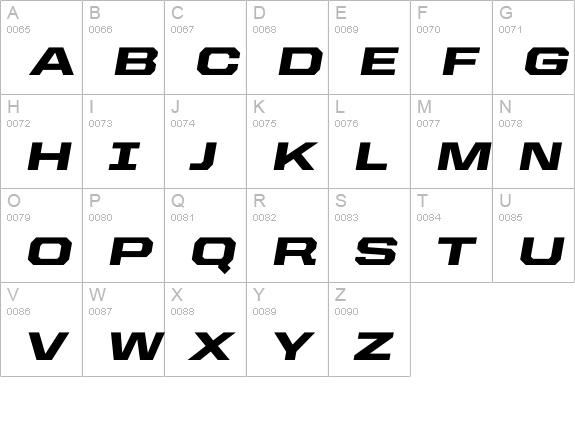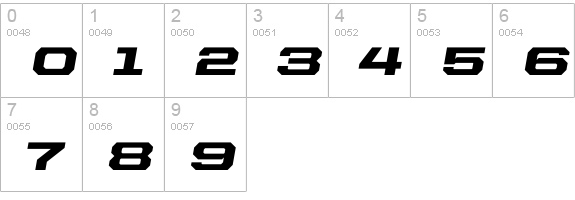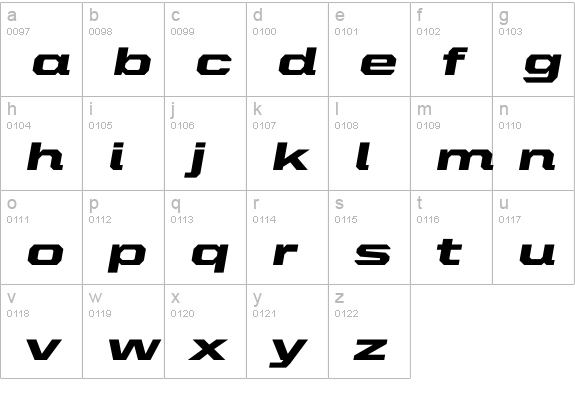
United Italic Ext Black Font Details
United Italic Ext Black is a maximum-weight, dramatic, italic variant in the United typeface family \xE2\x80\x94 well suited to maximum-impact headlines, posters, and packaging.
United Italic Ext Black is a bold and powerful font that demands attention and makes a bold statement. With its sleek and modern design, this font is perfect for creating eye-catching headlines, logos, and branding materials. The thick strokes and sharp edges of United Italic Ext Black give it a strong and authoritative presence, making it perfect for conveying a sense of confidence and professionalism. Its italicized style adds a touch of elegance and sophistication, making it suitable for a wide range of design projects. What sets United Italic Ext Black apart is that it is not only visually stunning, but it is also freely available to download at FontsMarket.com. This means that designers and creators can easily access and utilize this font without any cost. Whether you are a professional designer or a hobbyist, having access to high-quality fonts like United Italic Ext Black can greatly enhance your creative projects. So, if you are looking for a font that combines boldness, elegance, and accessibility, look no further than United Italic Ext Black. Download it for free at FontsMarket.com and let your designs stand out with its powerful presence.